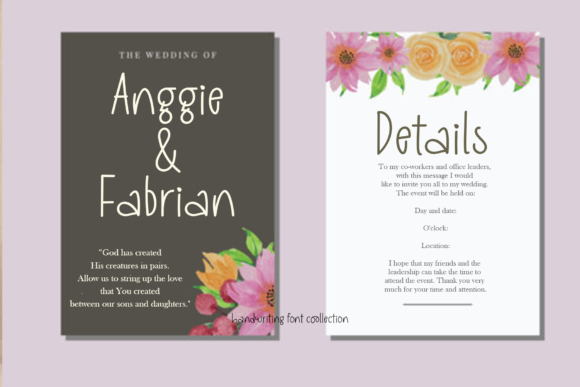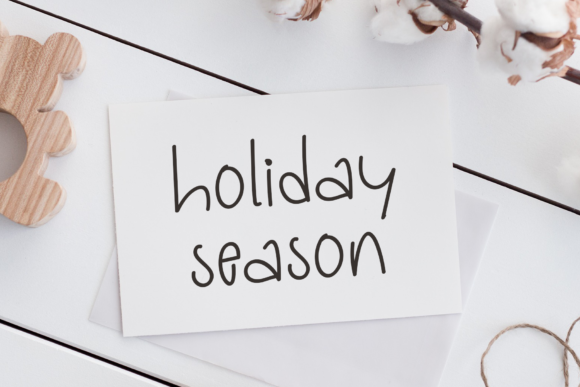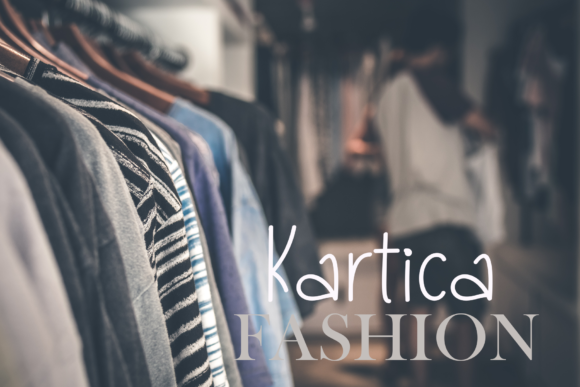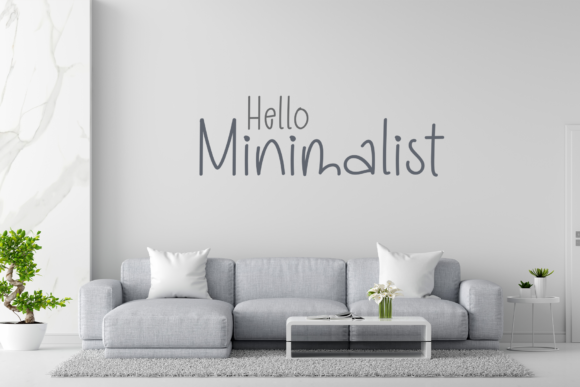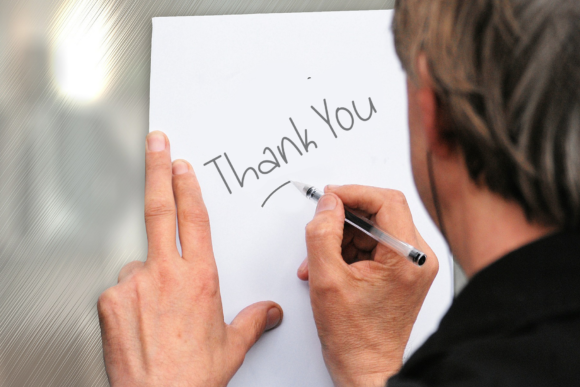
Simple Handwritten Font
About Simple Handwritten Font
Simple Handwritten is a sweet and elegant handwritten font. Dainty and joyful, this font will be ideal for writing wedding invitations, cards or any other design that may need a romantic, personalized touch!